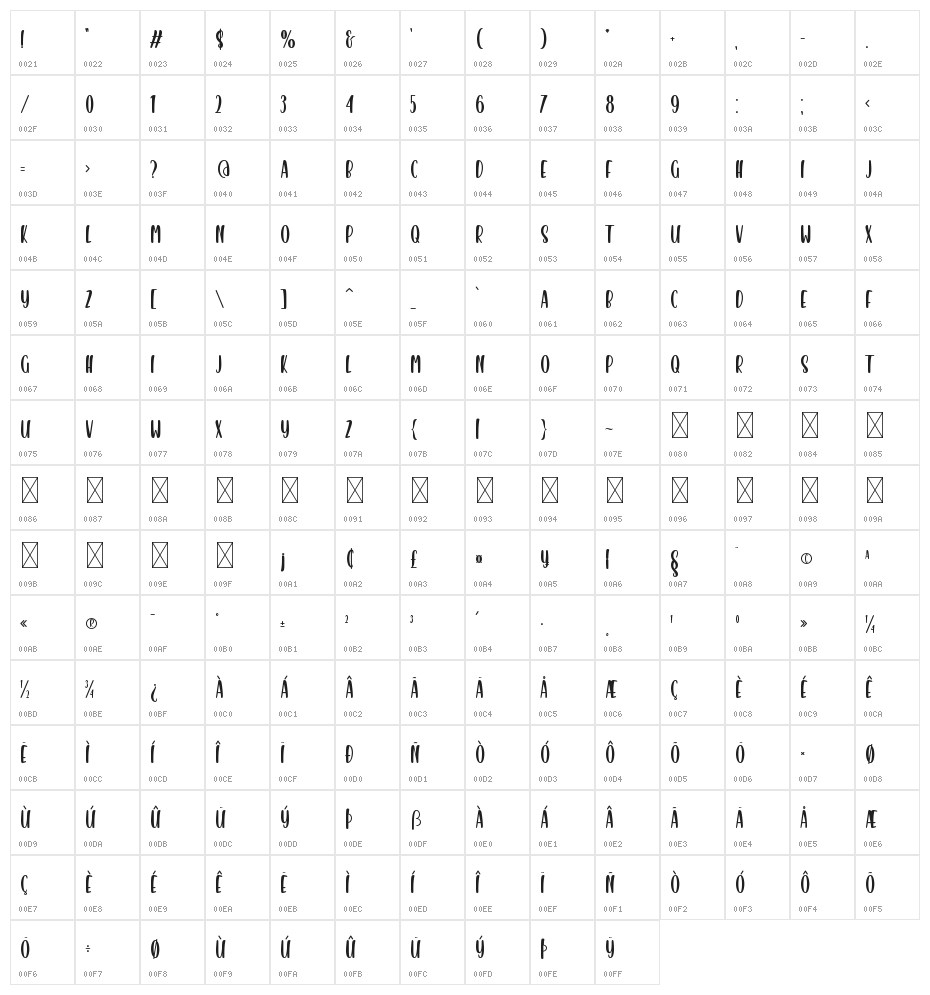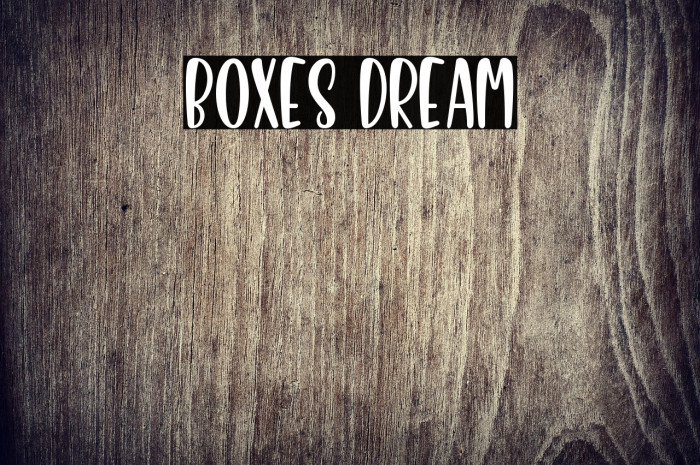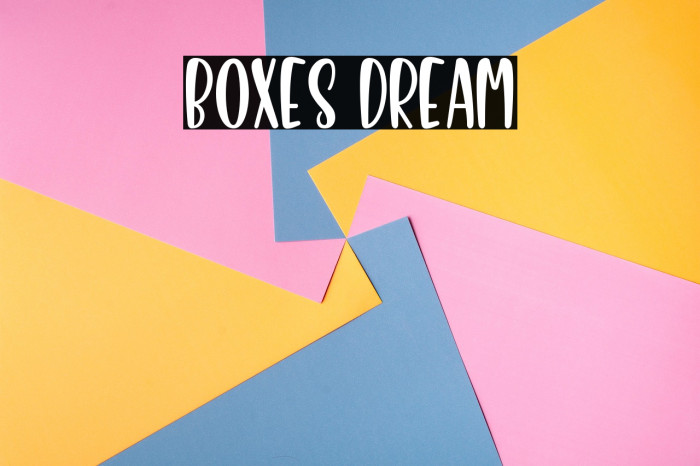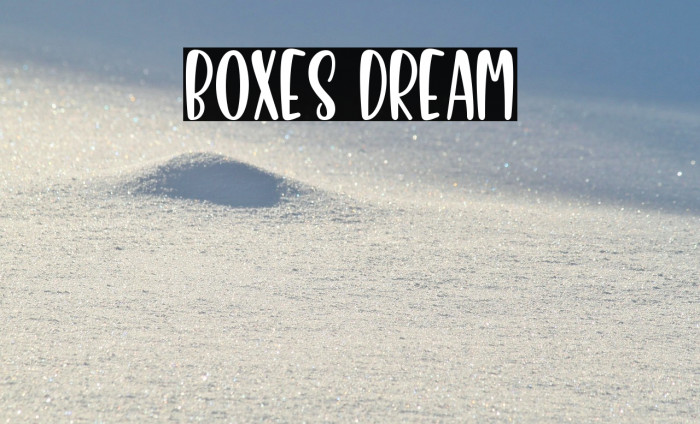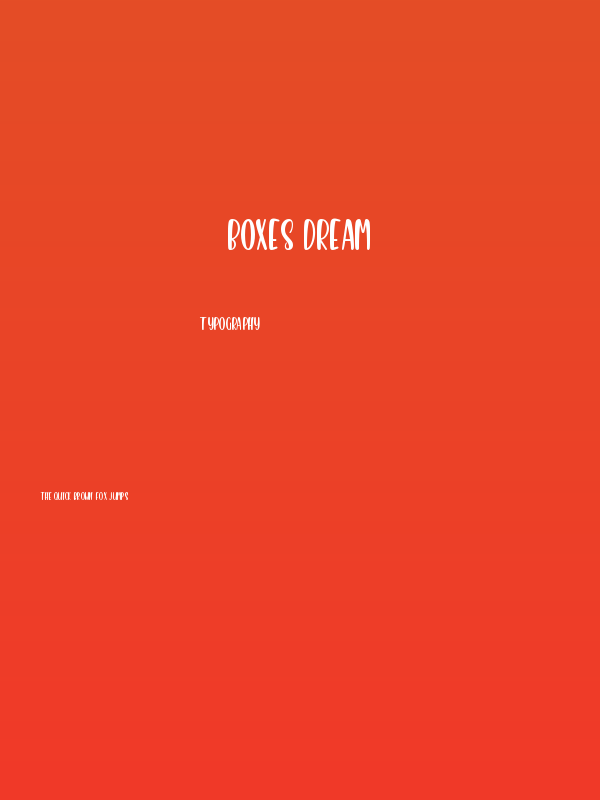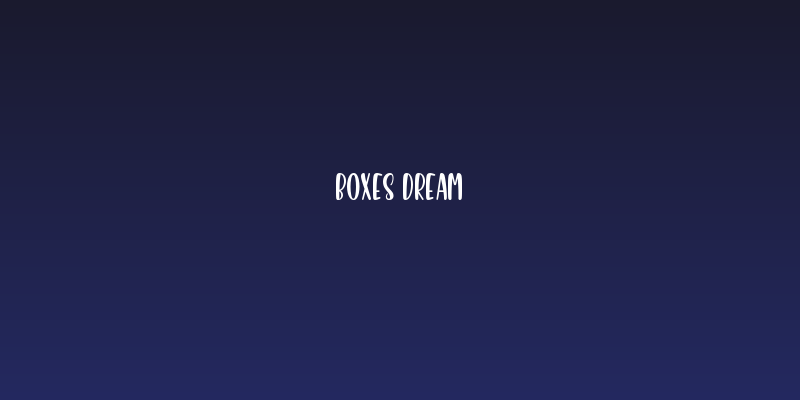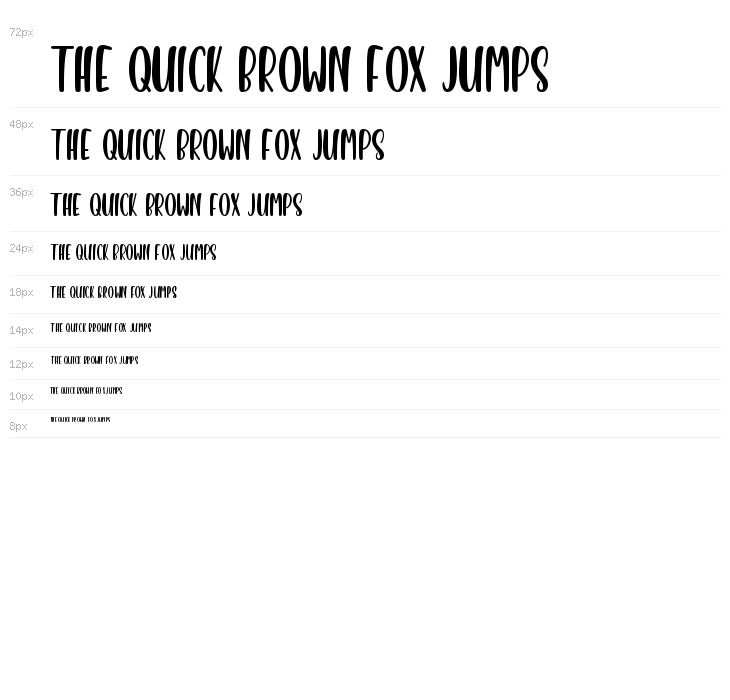
Boxes Dream Font
Boxes Dream Description
This playful and whimsical font features rounded, bold characters with a hand-drawn aesthetic. The letters exhibit a consistent thickness, giving them a uniform appearance that is both approachable and friendly. The uppercase and lowercase letters maintain a cohesive style, with slight variations that add to the font's charm. The numerals are clear and easy to read, matching the overall style of the alphabet. Special characters are included, maintaining the same playful design. This font is perfect for projects that require a fun and engaging look.
| Proposed Projects | Ideal for children's books, playful branding, greeting cards, and social media graphics. |